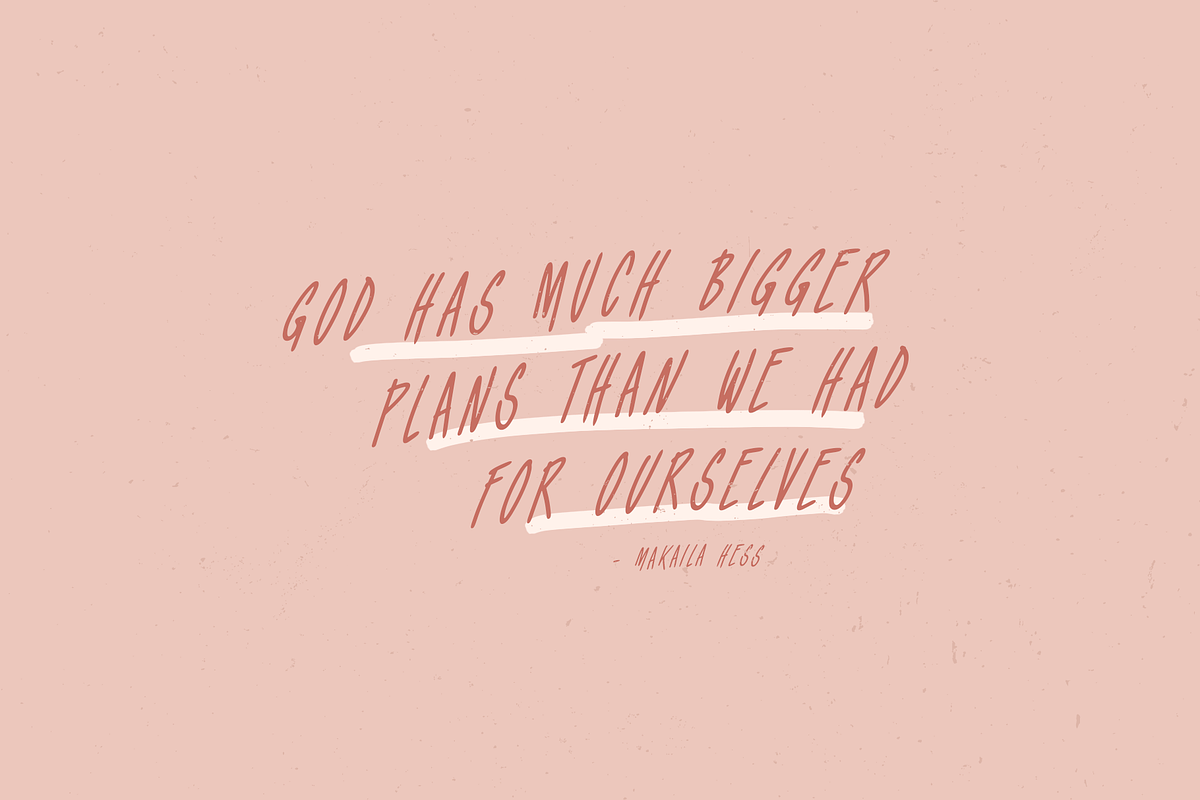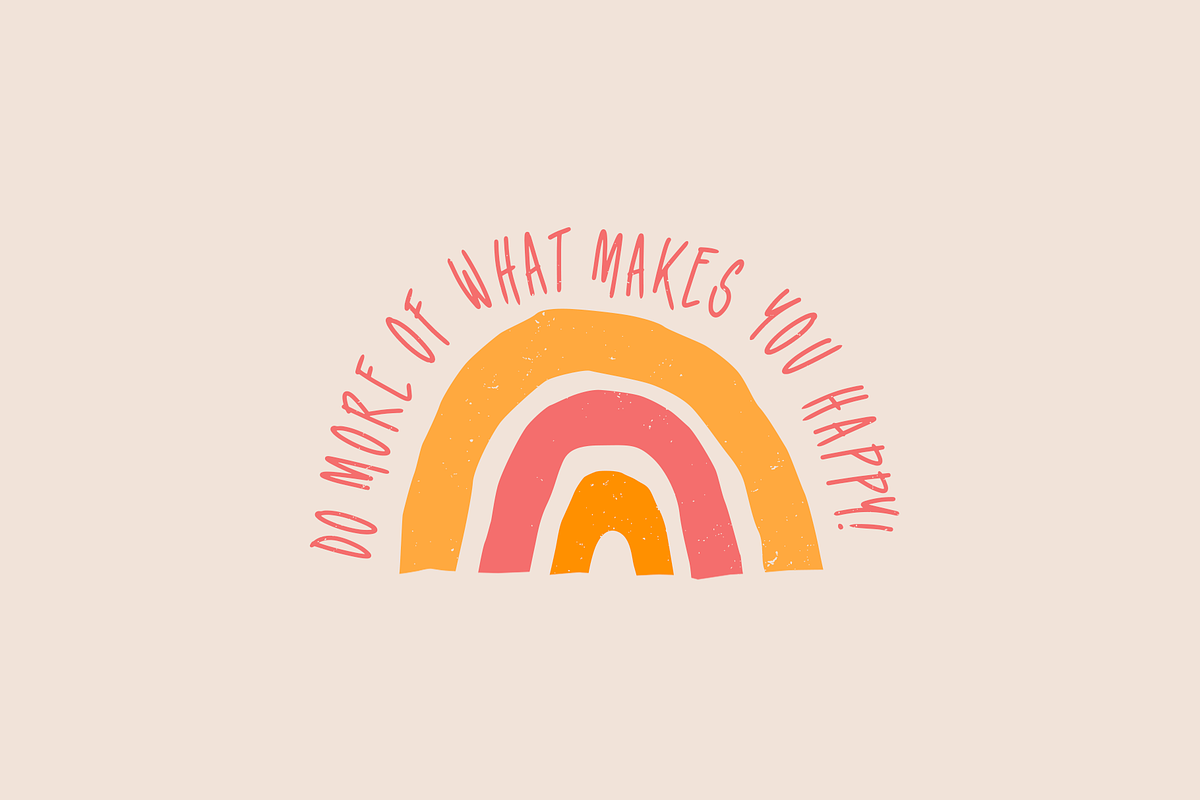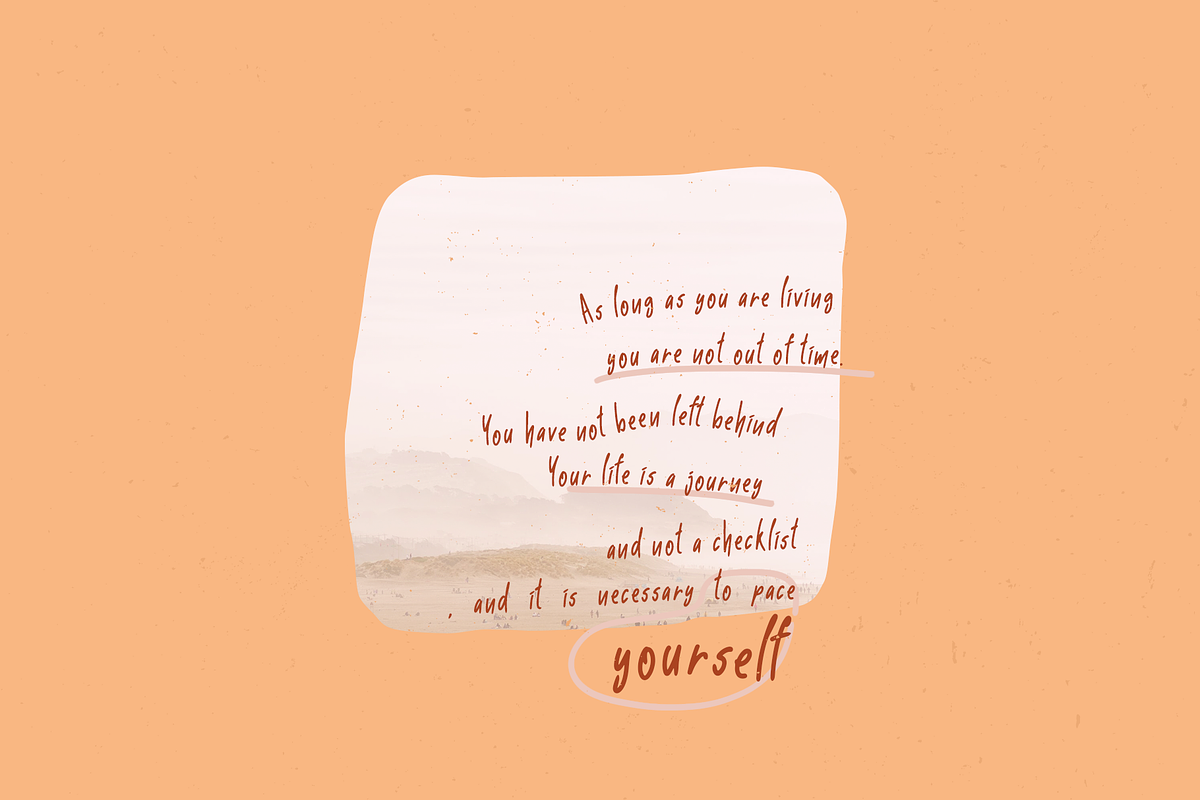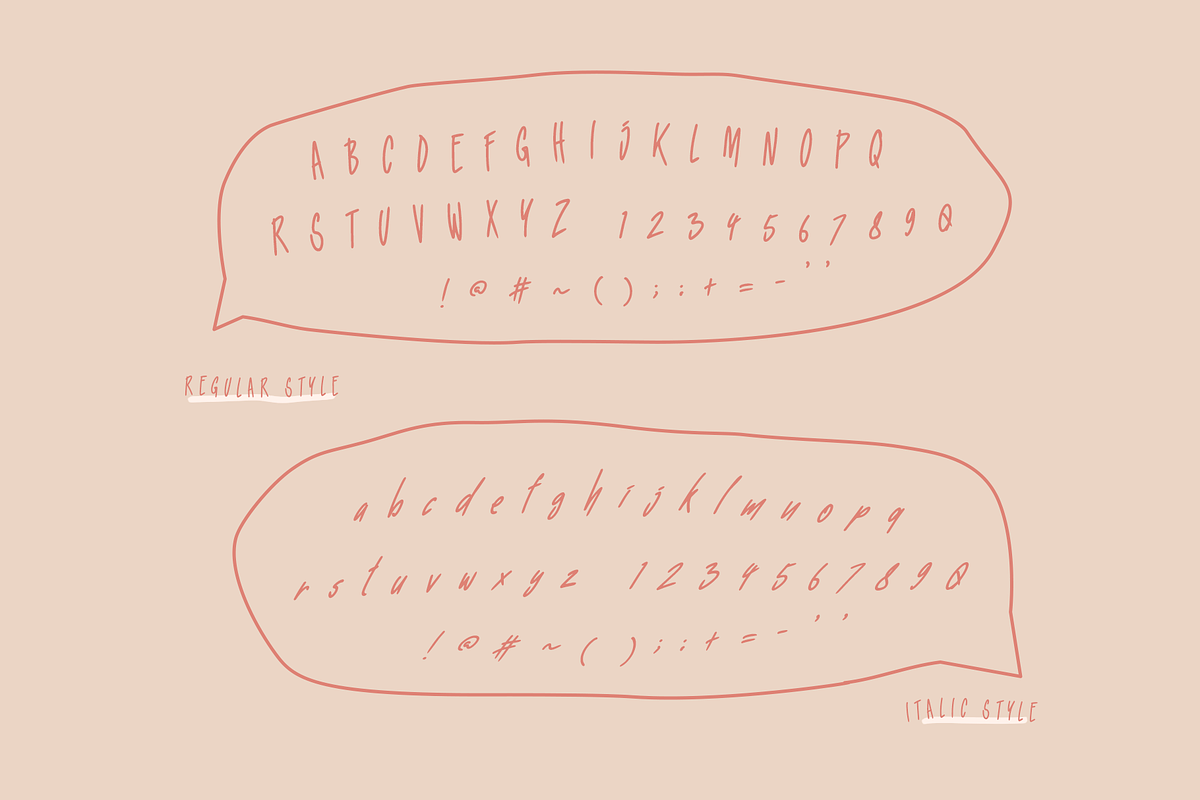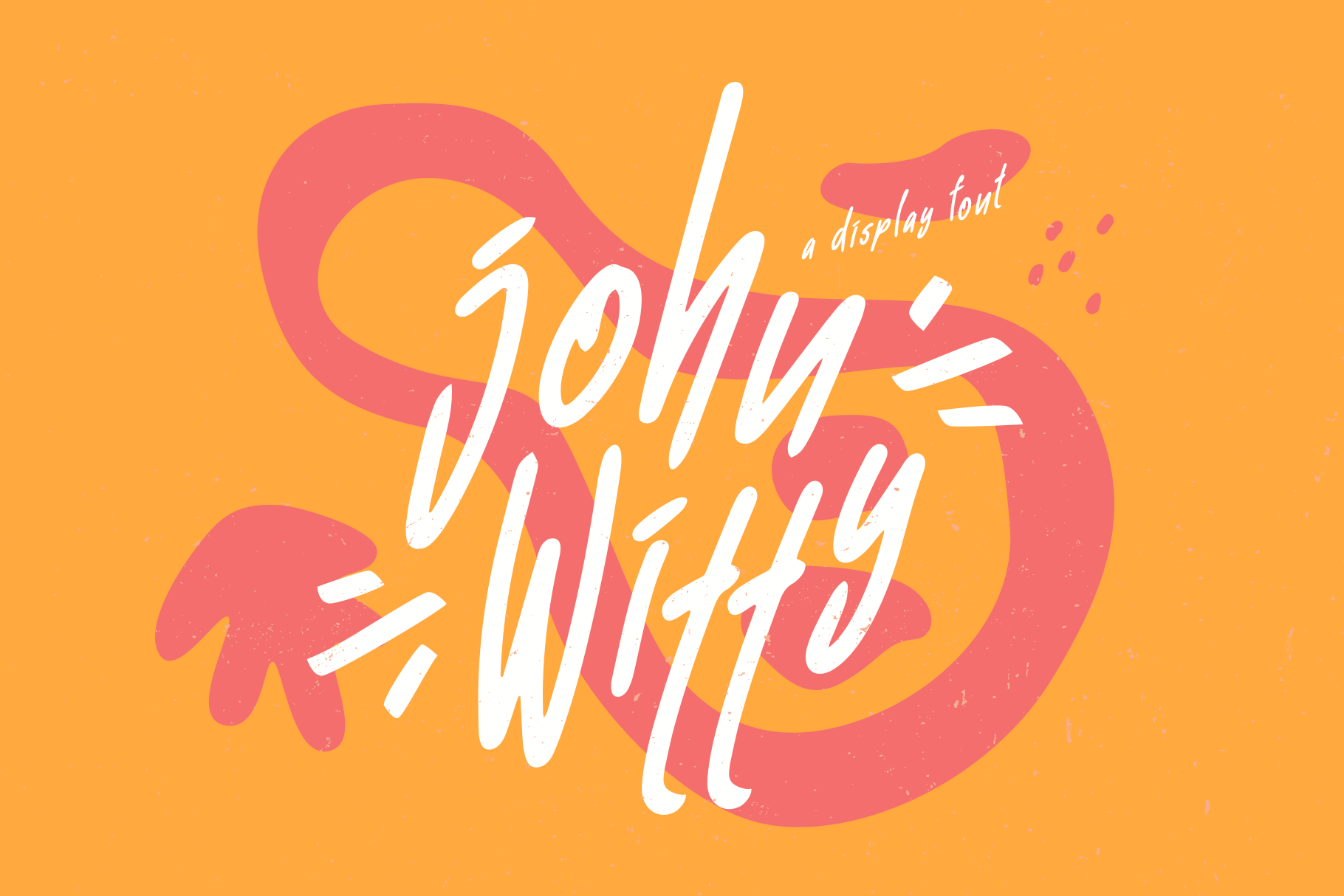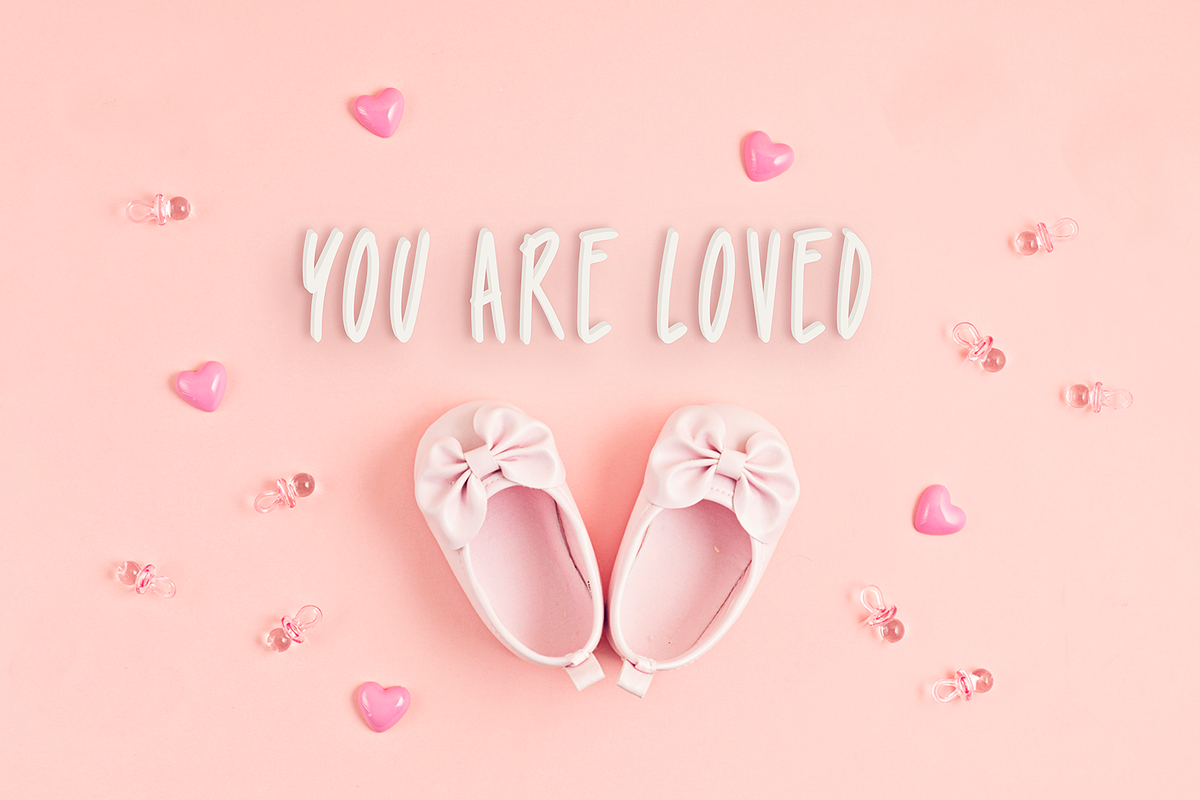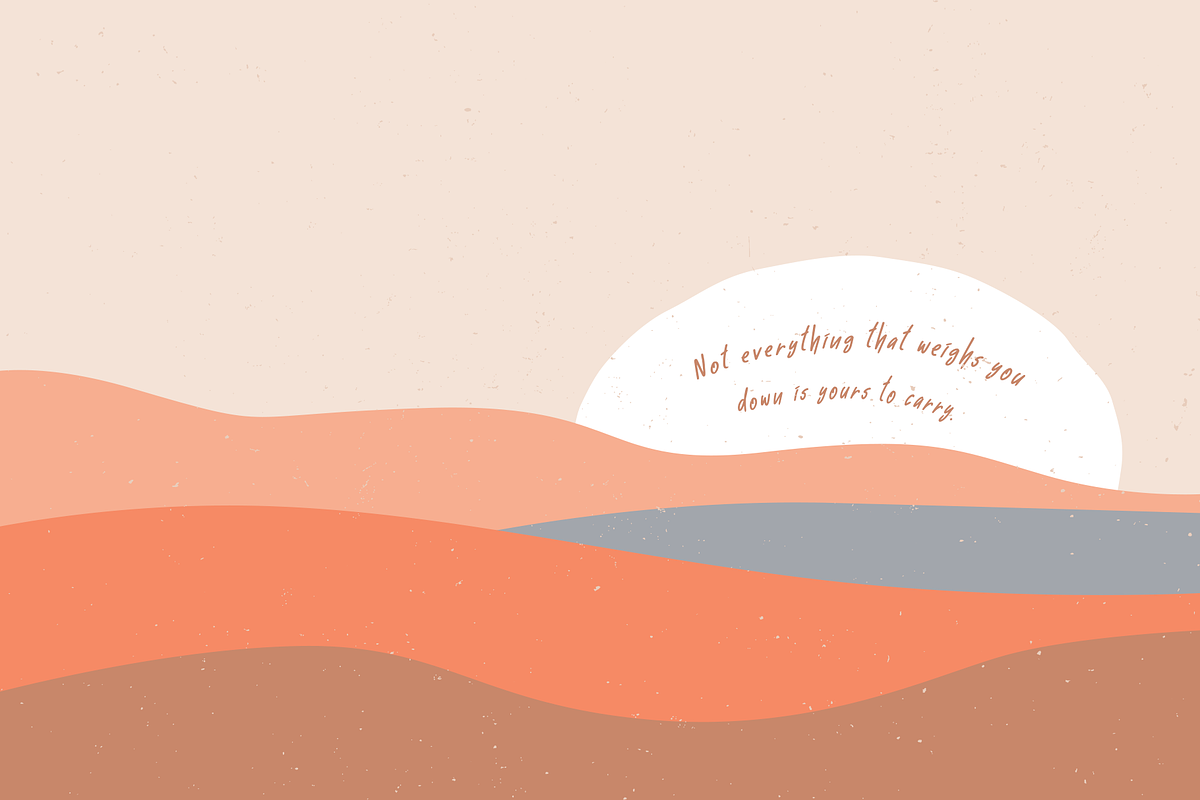
John witty Kids Font
GRVS EJohn Witty Playful font is our new item that suitable for your business, or logo.
Great for Logo, Sticker, Jersey, Invitation Card, Brochure, etc.